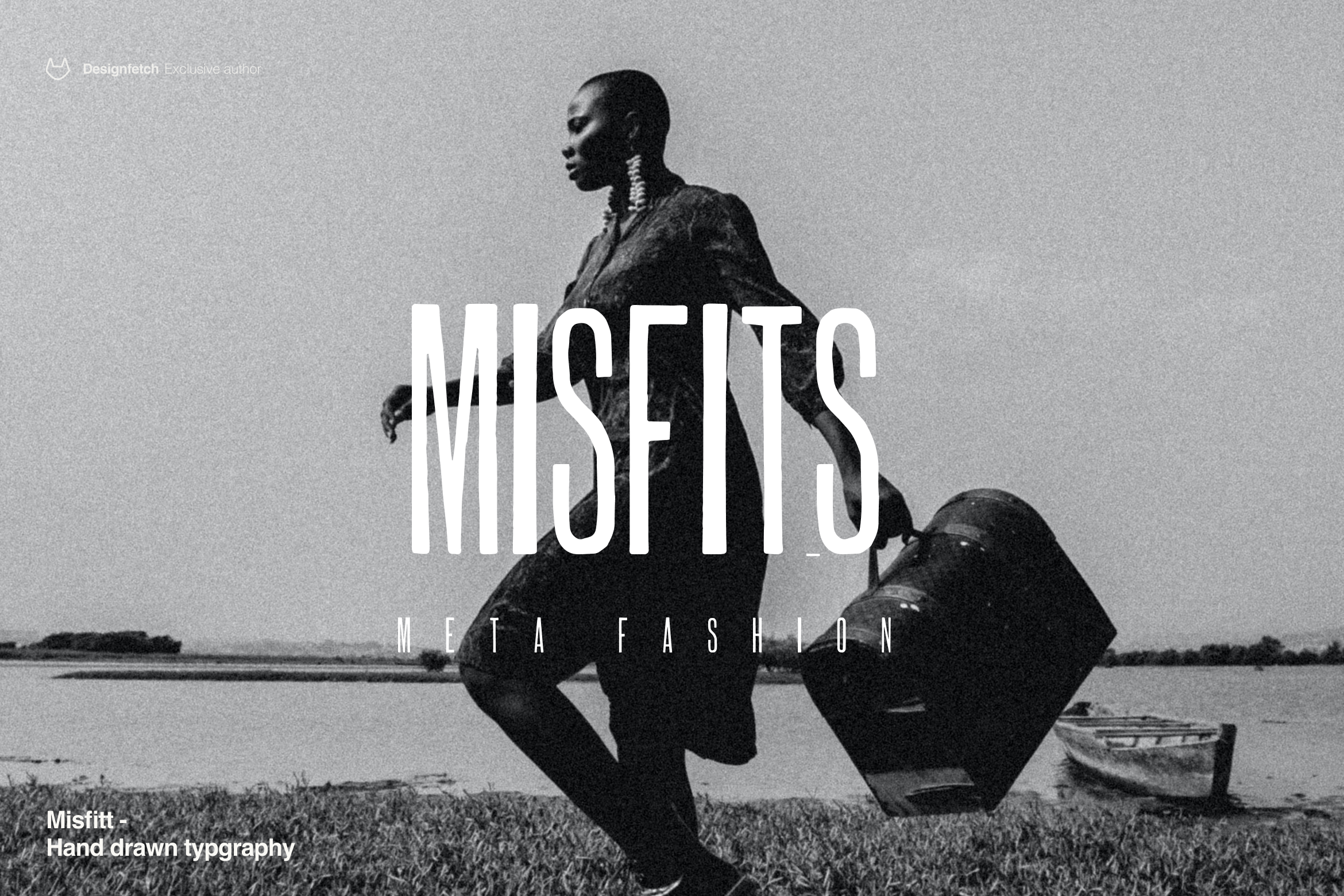
Misfits Typeface
Misfits fashion typeface for fashion misfits
We hold a strong connection to each letter that is part of us, and it shows in our style and quality. Our simplicity speaks volumes about our dedication to crafting the best possible typeface that can help you present yourself in your best image all the time. Fashion is more than just clothes, they say-we believe in it too! With being a part of your outfit, we strive to highlight some elegance and sophistication with grace while letting you choose how you want to express yourself through fashion.
Misfit is a carefully-designed typeface that speaks volumes about your fashion sense and style, making it easy to choose the right words with which you can express yourself in the best way possible.